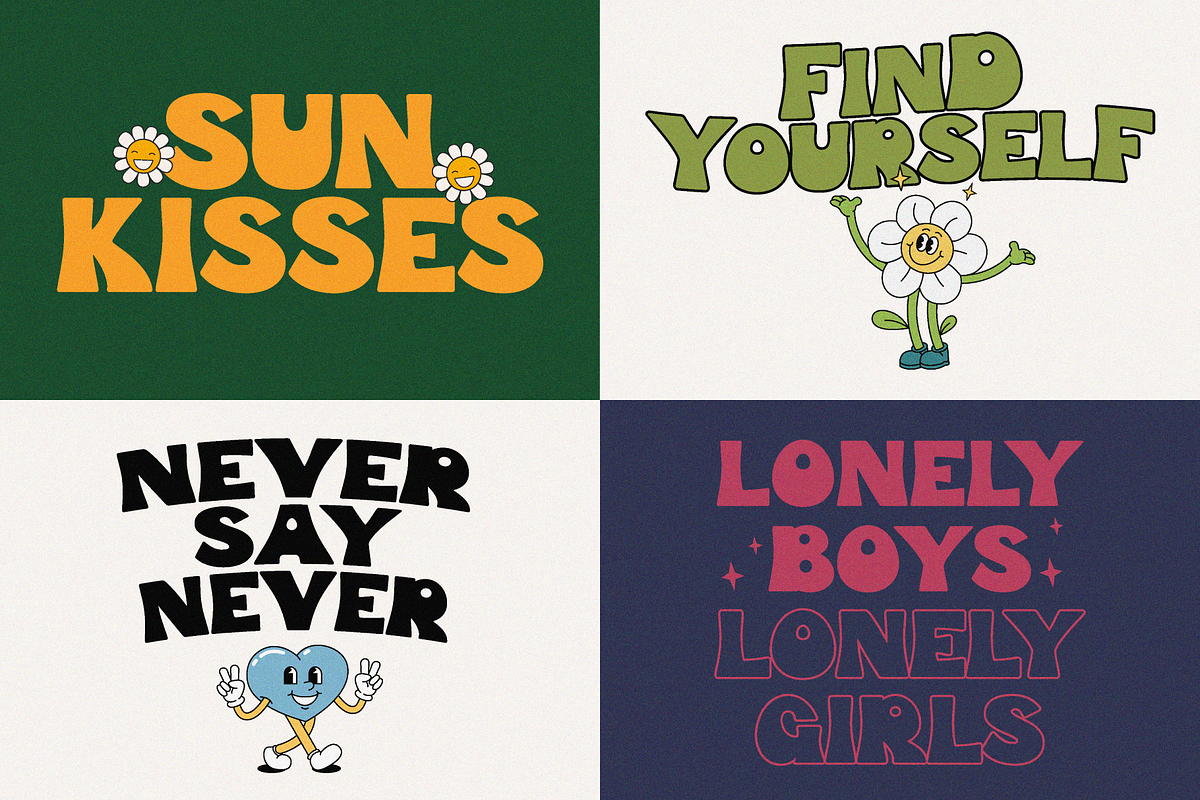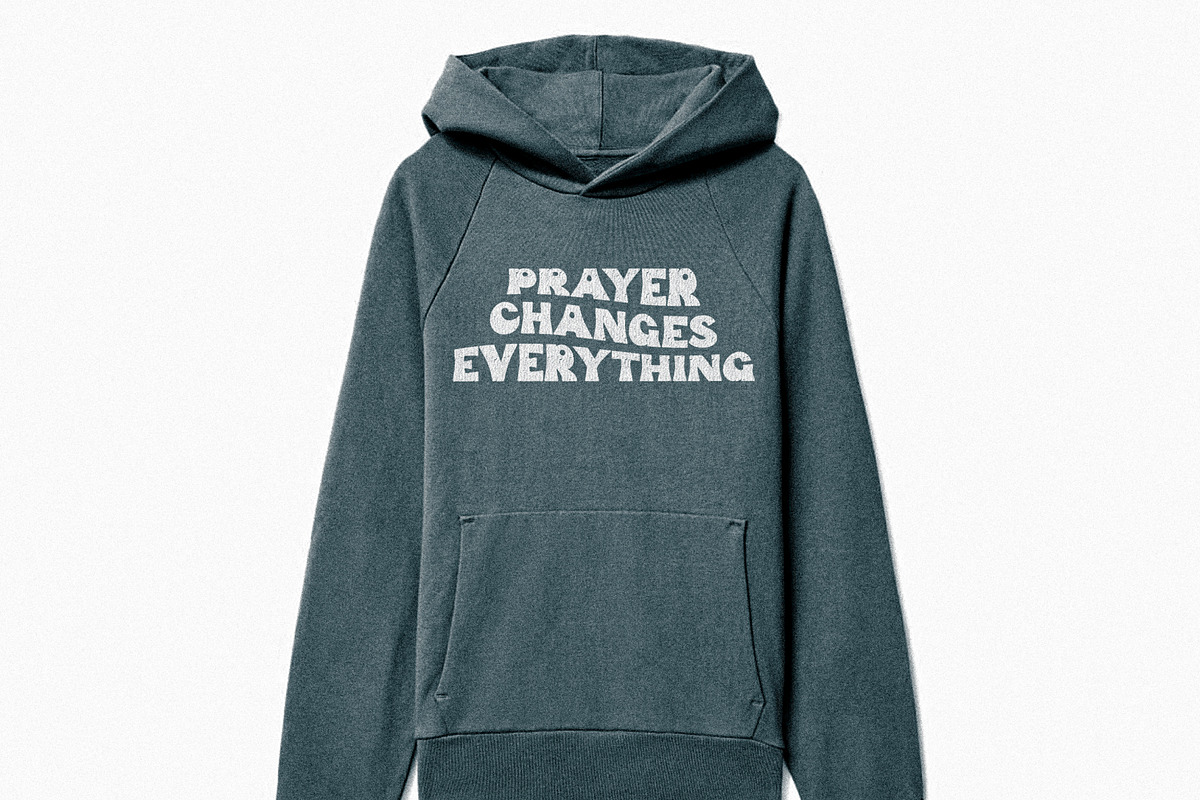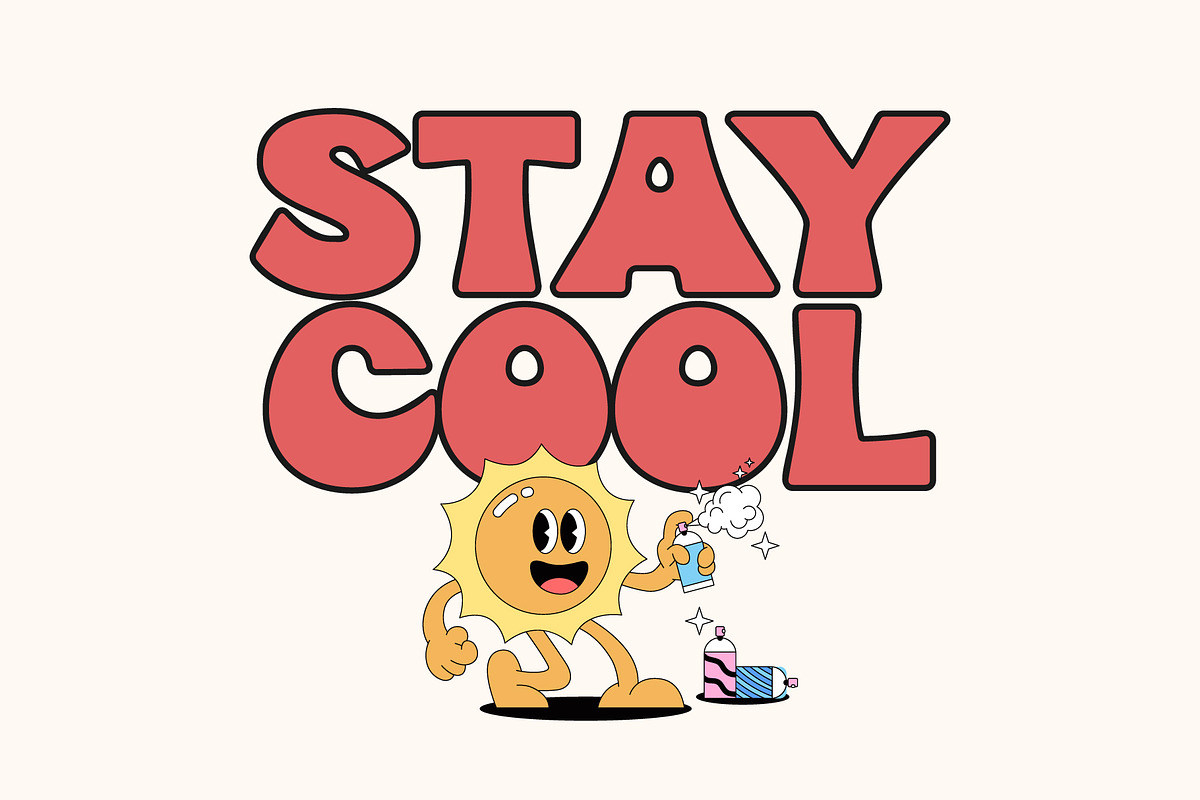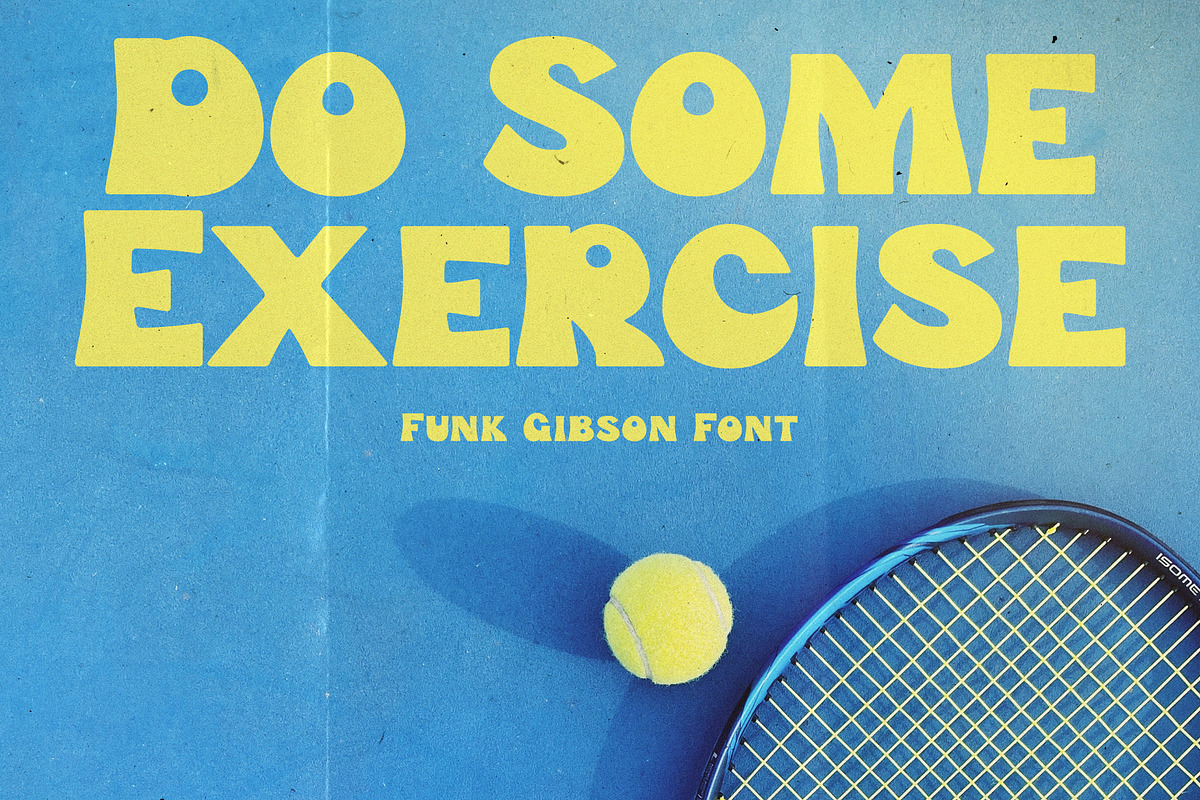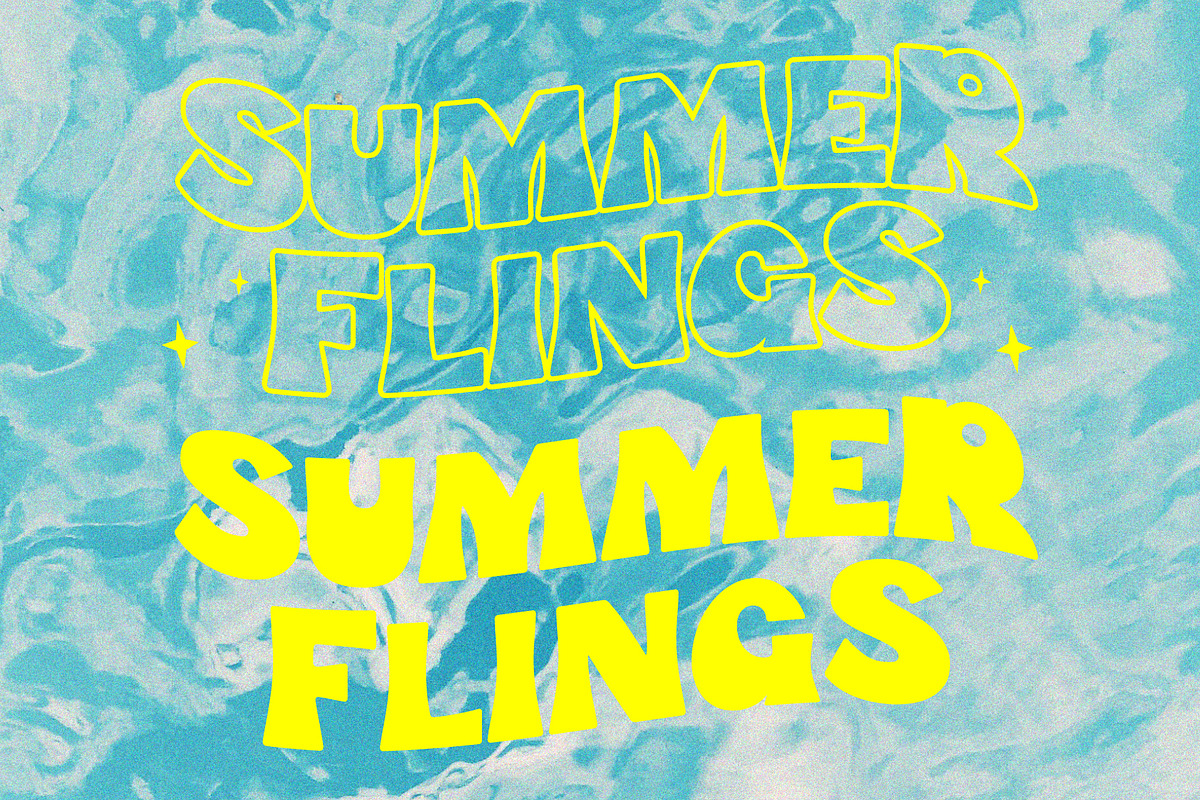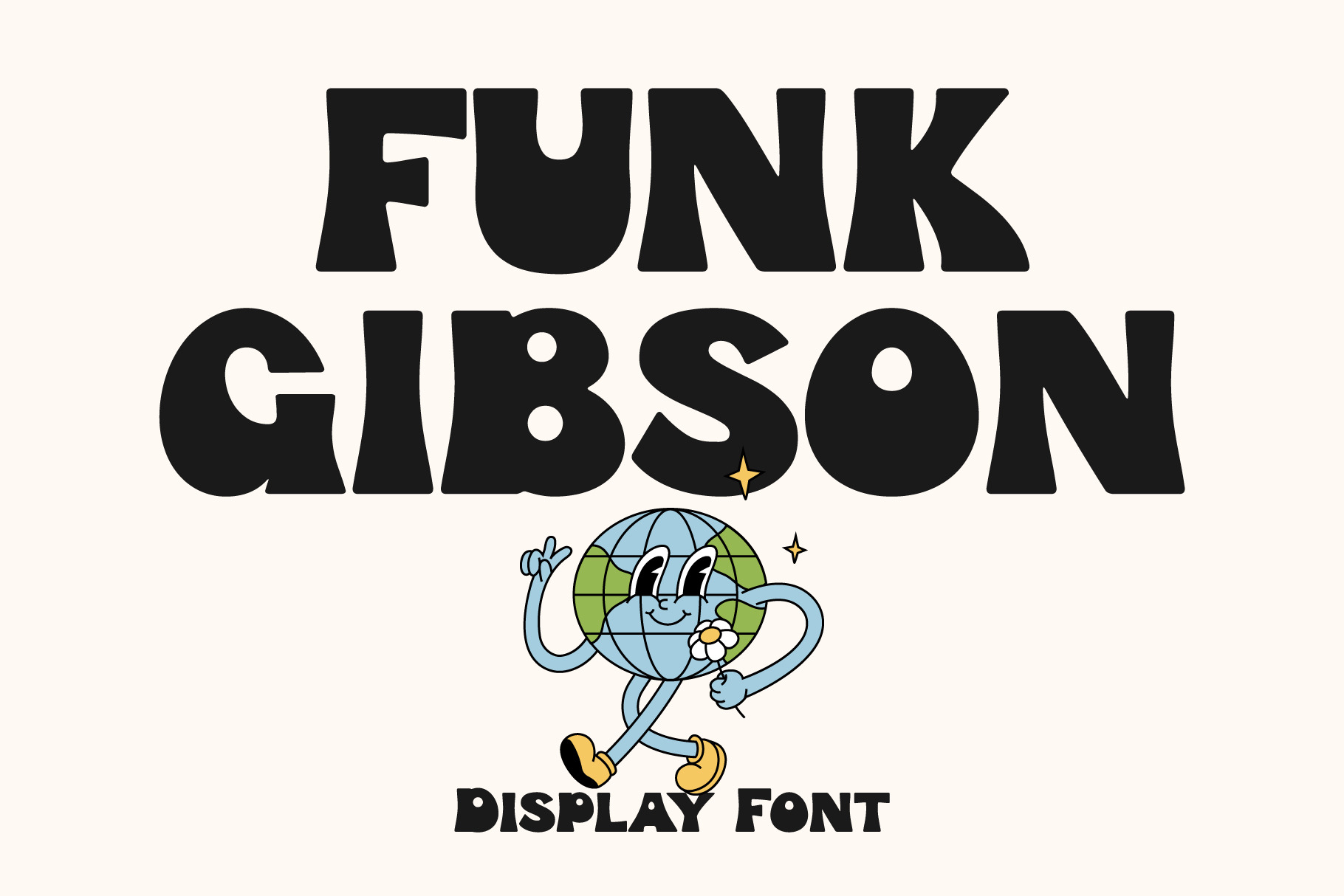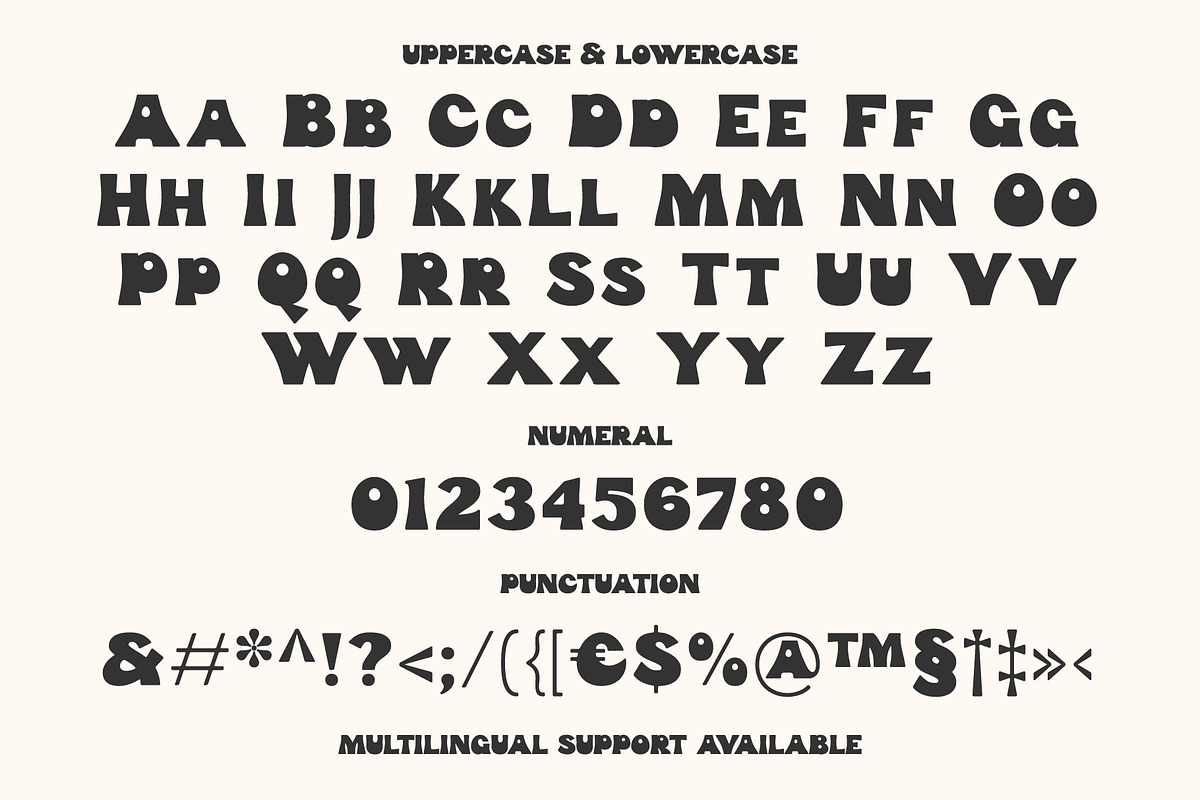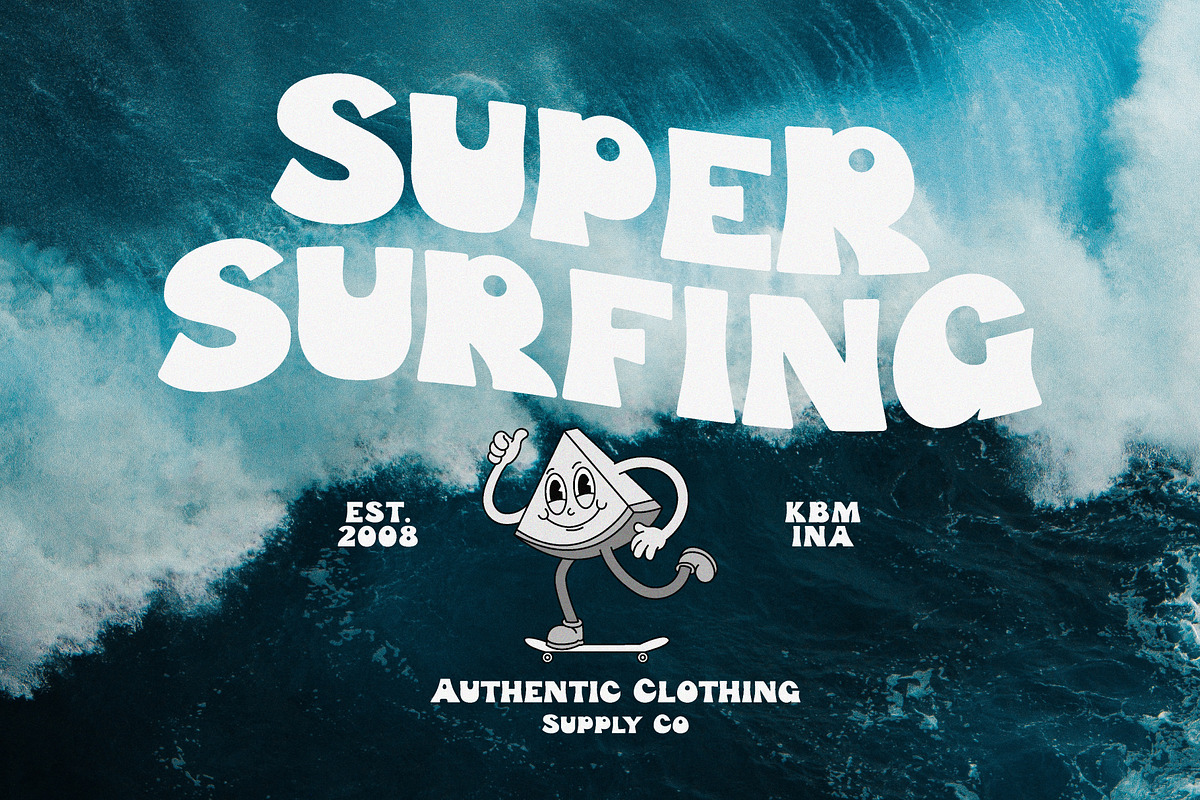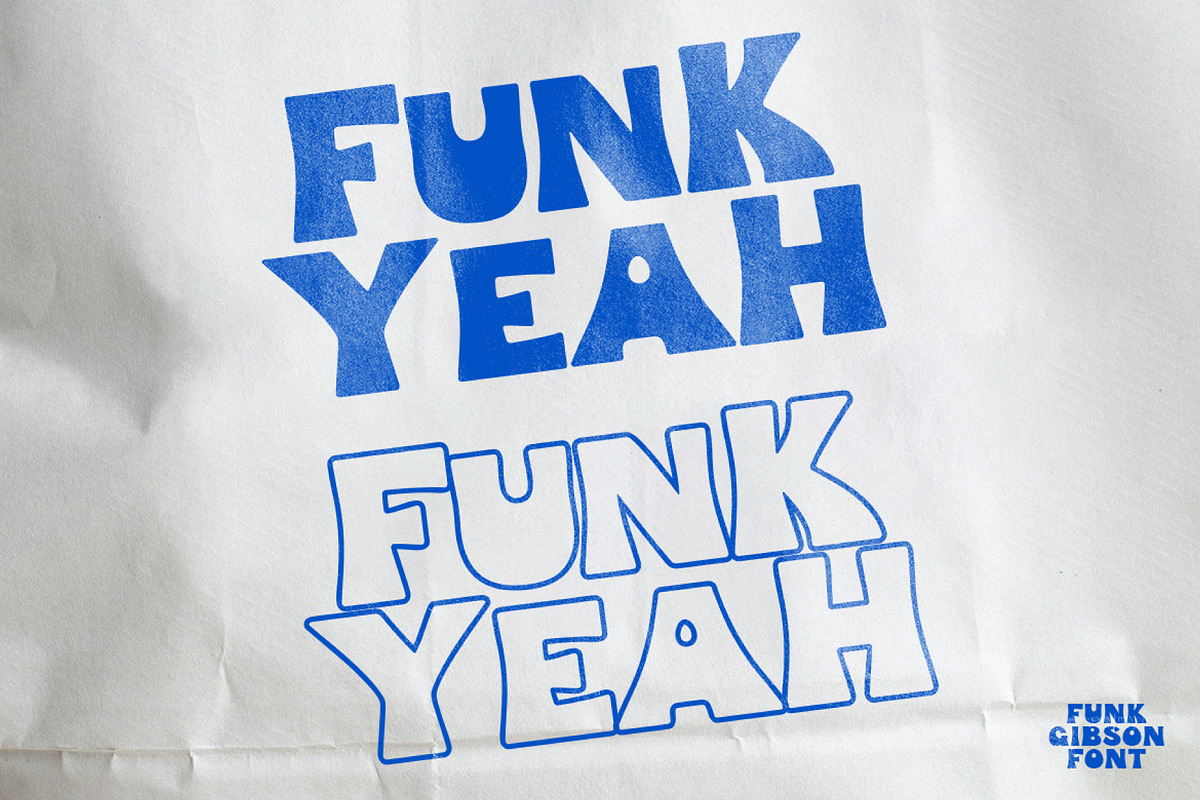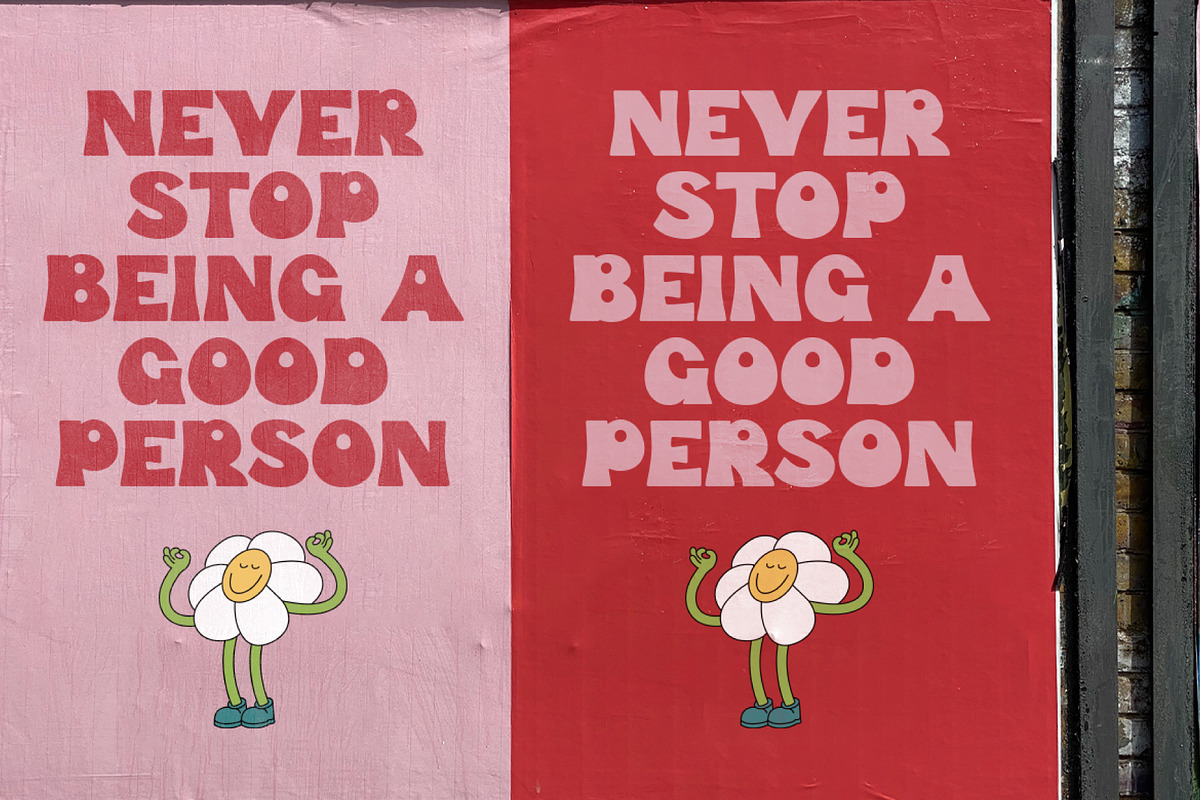
Funk Gibson - Display Font
Funk Gibson - Display Font.
Expressive display fonts make your designs more fun and look fresh. This is perfect for those of you who are making design projects such as posters, crafts, branding, or merchandise.
- Features: Uppercase, Lowercase, Numeral, Punctuation & Multilingual.
- Multilingual contained: Afrikaans, Albanian, Asu, Basque, Bemba, Bena, Breton, Catalan, Chiga, Cornish, Danish, Dutch, English, Estonian, Filipino, Finnish, French, Friulian, Galician, German, Gusii, Indonesian, Irish, Italian, Kabuverdianu, Kalenjin, Kinyarwanda, Luo, Luxembourgish, Luyia, Machame, Makhuwa-Meetto, Makonde, Malagasy, Manx, Morisyen, North Ndebele, Norwegian Bokmål, Norwegian Nynorsk, Nyankole, Oromo, Portuguese, Quechua, Romansh, Rombo, Rundi, Rwa, Samburu, Sango, Sangu, Scottish Gaelic, Sena, Shambala, Shona, Soga, Somali, Spanish, Swahili, Swedish, Swiss German, Taita, Teso, Uzbek (Latin), Volapük, Vunjo, Zulu.